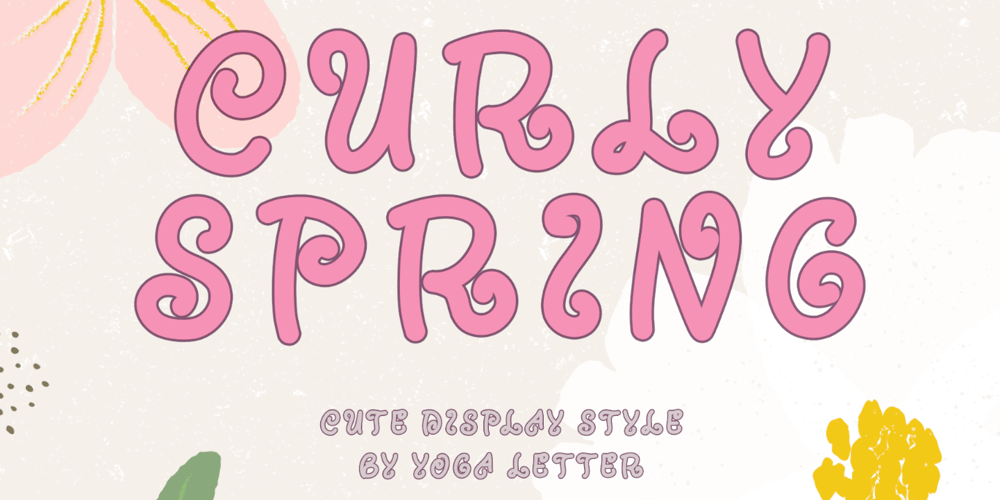
Curly Spring
Curly Spring font
Curly Spring Font Family was designed by Isroni Yoga Prasetya and published by Yoga Letter. Curly Spring contains 1 styles and family package options. “Curly Spring” is a unique and cute curly display font. This font is equipped with uppercase, lowercase, numerals, punctuation, and multilingual support. Very suitable for summer, spring, holidays, cartoons, comics, Easter, invitations, kids, animation, animals, and others.